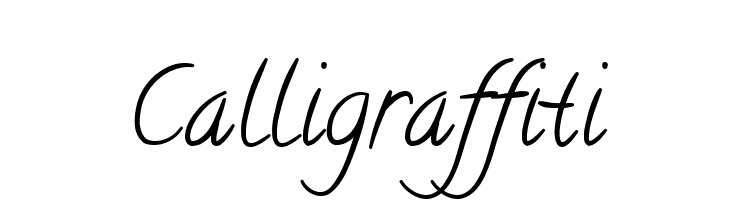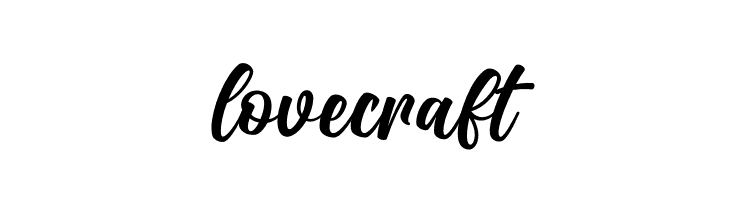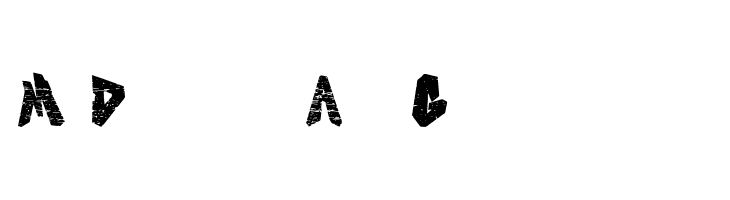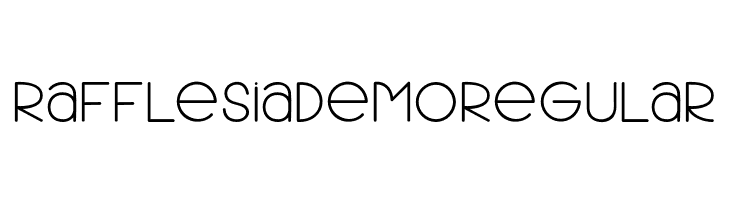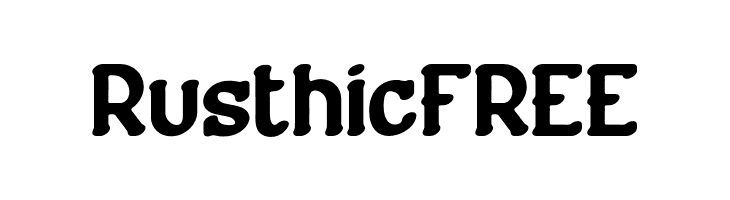
A playful, handwritten font with rounded edges and a friendly style.
A lively and expressive handwritten font with fluid strokes and a playful aesthetic.
An elegant and flowing script font with artistic flair.
A bold, elegant script font with flowing, interconnected characters.
A playful, hand-drawn font with bold, rounded strokes and an informal style.
A bold, graffiti-inspired font with jagged edges and a distressed texture.
A playful and modern font with unique, artistic characters.
A modern, geometric font with playful, rounded characters.
A bold, rustic font with rounded strokes and a handcrafted feel.
A flowing, cursive font with elegant loops and a classic calligraphy style.